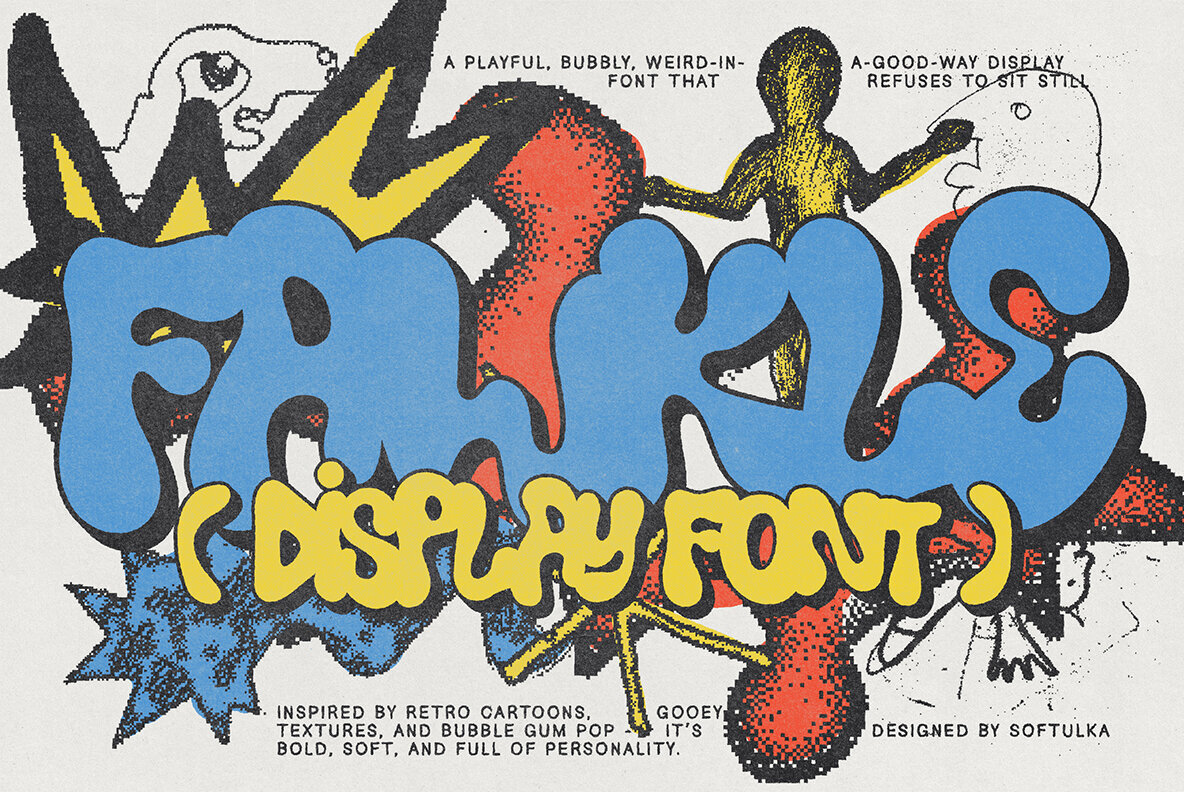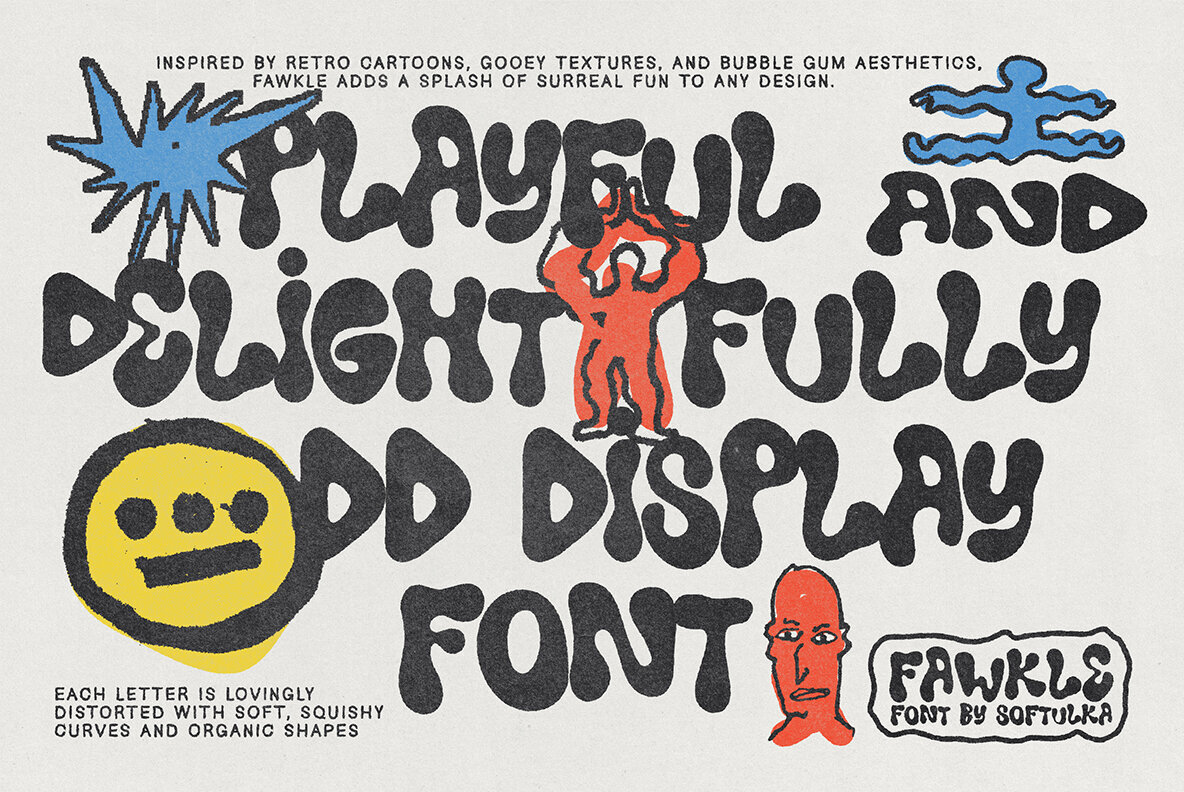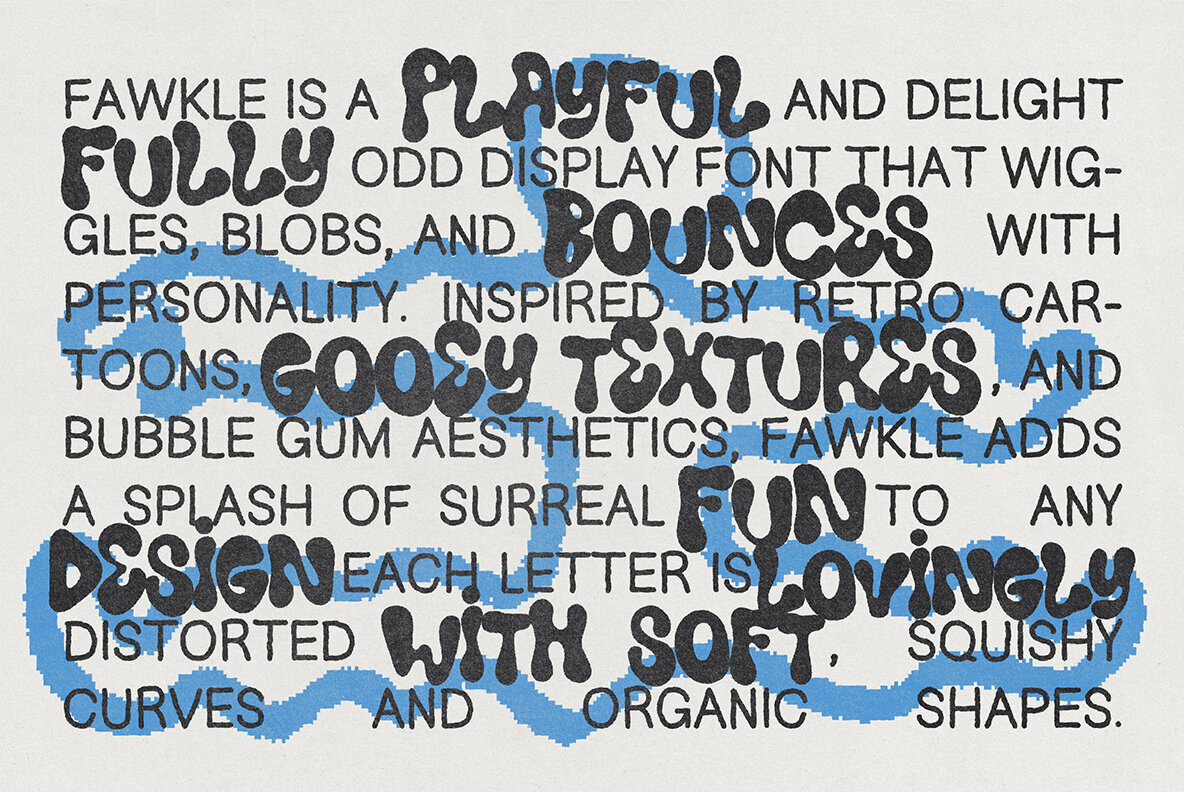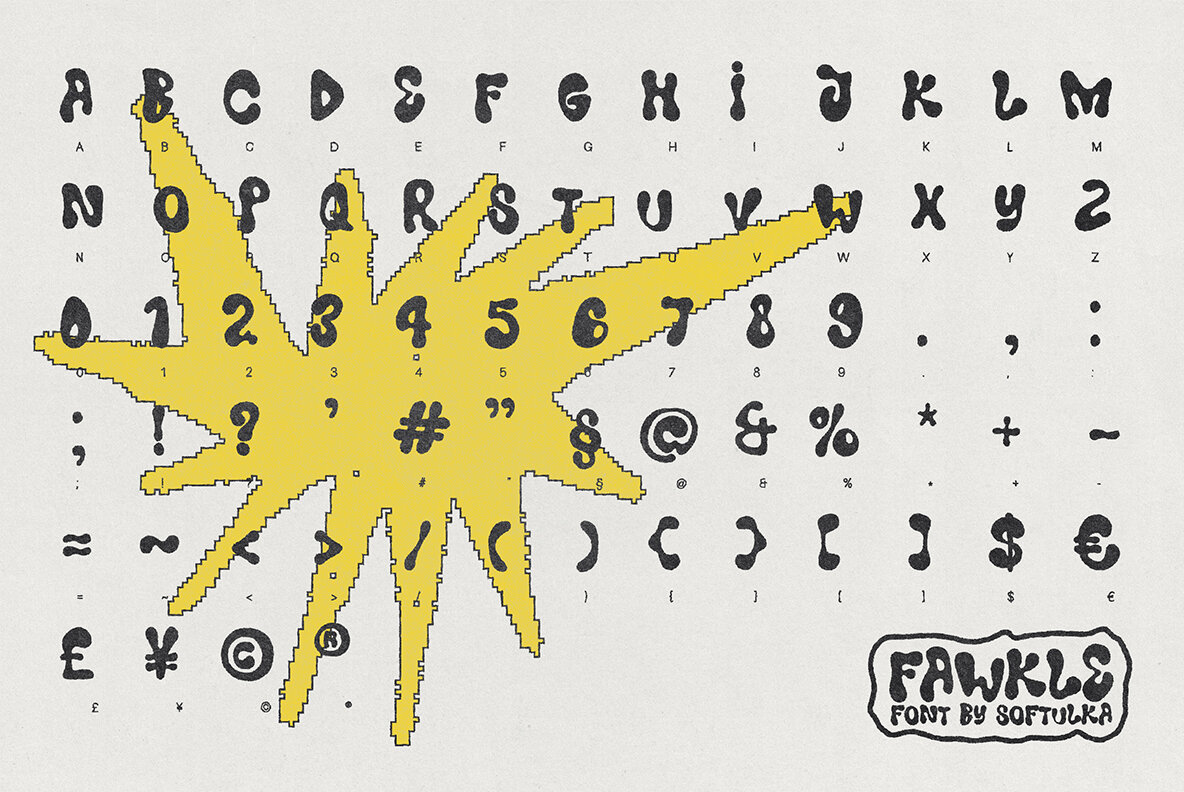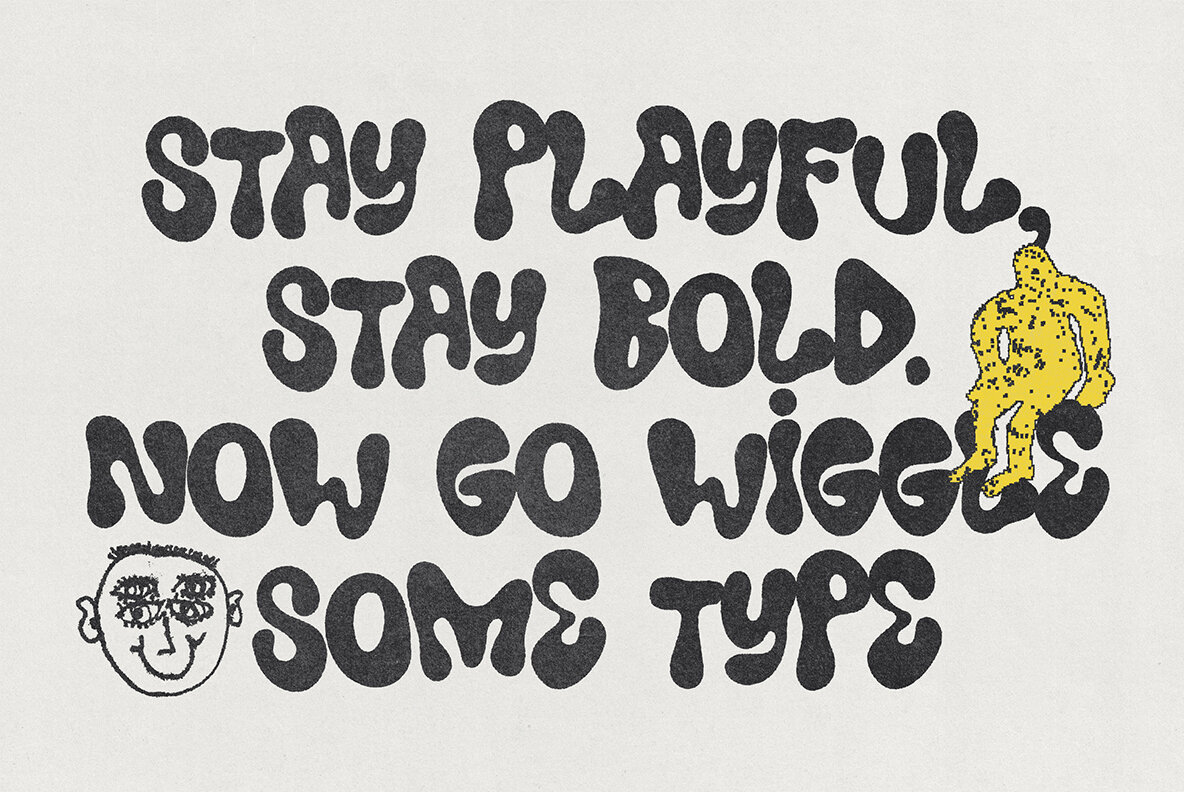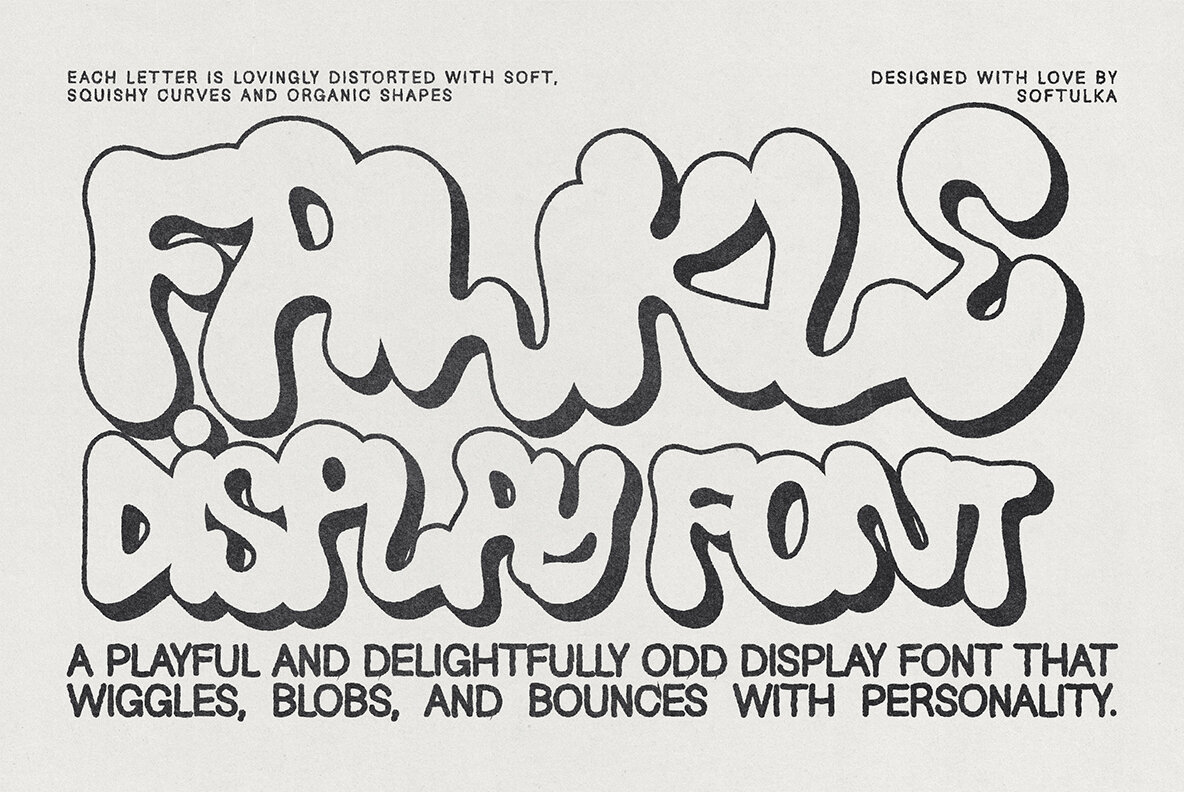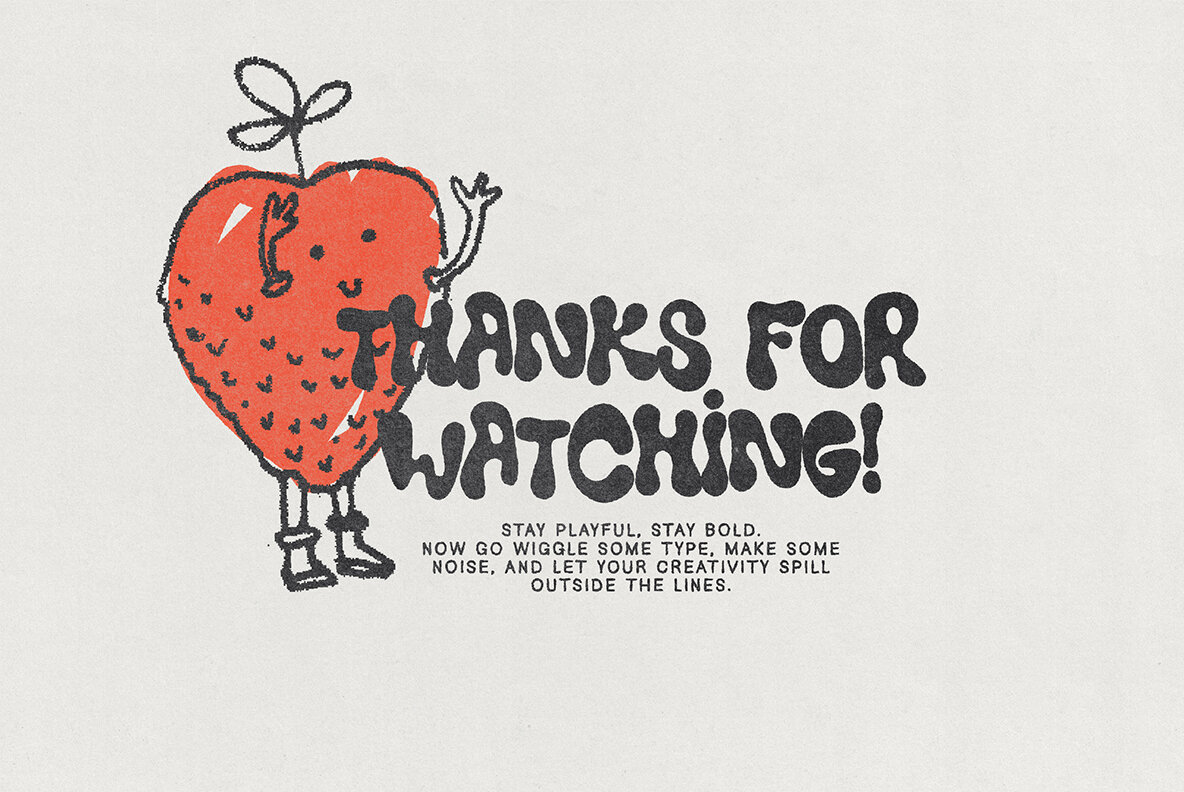
Fawkle Font
Fawkle
Fawkle is a whimsical and eccentric display font that captures attention with its lively presence. Drawing inspiration from retro cartoons, gooey textures, and bubble gum aesthetics, this font brings an element of unexpected charm to your design projects. The letters, each uniquely deformed with soft curves and organic shapes, cater to projects demanding a touch of joyful absurdity. Fawkle: Playful Display Font with a Surreal Twist
Perfect for Creative Endeavors
Fawkle stands out with its playful, liquid quality, making it the perfect choice for those embracing maximalist design trends and beyond.